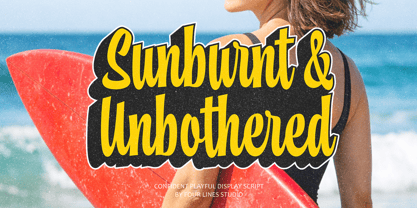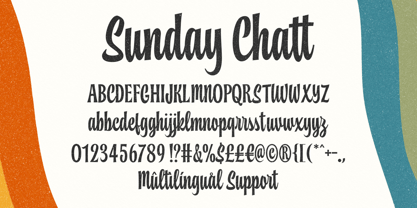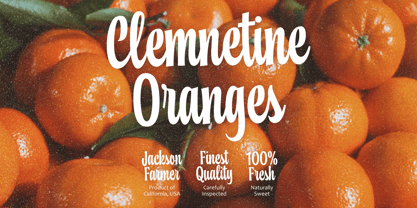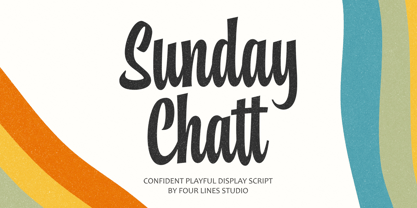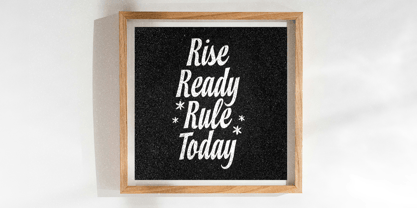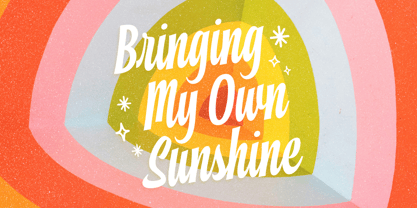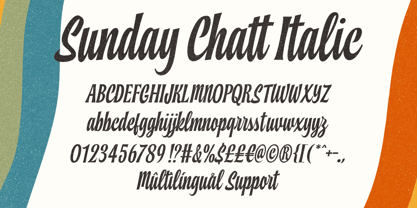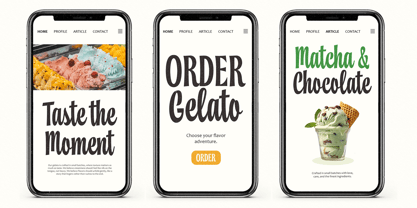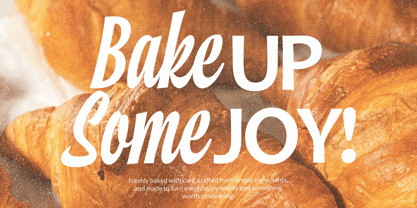
Sunday Chatt
by Four Lines Std
The Sunday Chatt Font Family was designed by Zain Fahroni and published by Four Lines Std. Sunday Chatt contains 2 styles and family package options. More about this family
Sunday Chatt is a display script designed for modern visual needs. It works well for branding headlines, packaging design, merchandise, social media content, and editorial layouts that require an expressive touch. The letterforms perform best at larger sizes while remaining comfortably readable, making it effective as a main visual element in a composition. Sunday Chatt comes in two styles, Regular and Italic, offering flexibility for different design directions. Its character blends a playful feel with a clean structure, staying expressive without feeling excessive and easy to use across various design contexts.